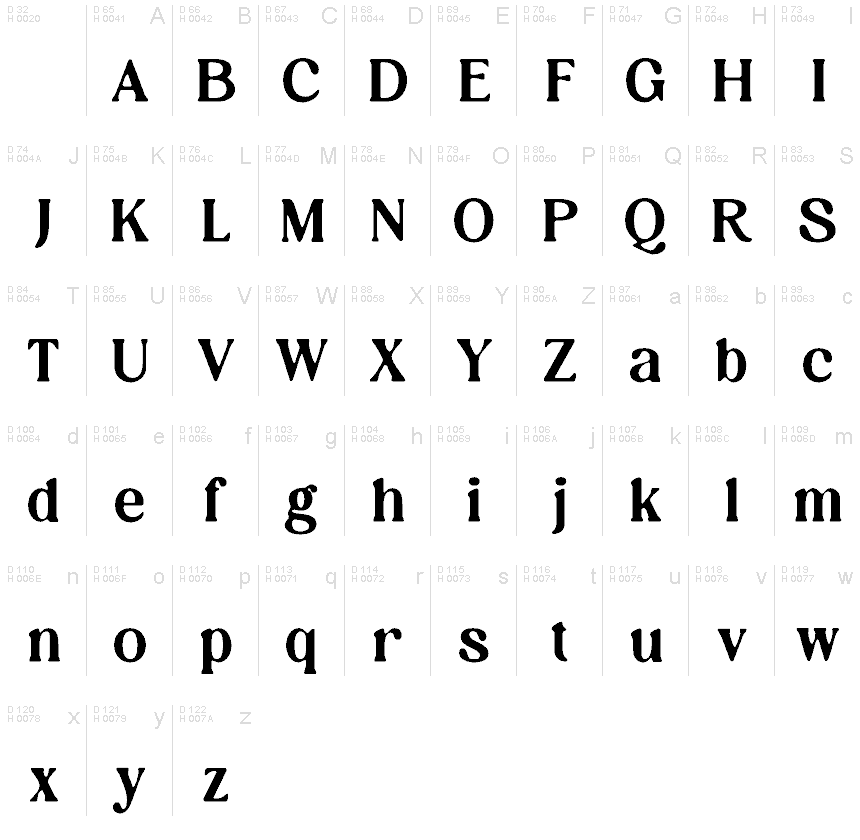
Jovelyn Blur Demo Regular
Jovelyn Blur font by Craft Supply Co. features blend sleek design with attractive finishes and vintage influence, offering a premium feel to all viewers. Retro yet elegant, refined yet personal; this timeless font for texts and headings has long ascenders giving a bolder visual interest. Traditional serif elements ensure a condensed or wider visual appeal.
Free Jovelyn blur works beautifully in branding projects and printed designs; newspapers, magazines, brochures; fashion advertisements and posters as well as business cards designs among other things. All the light themes can enjoy this font softly drawn lines instantly that combine like magic with images or drawings around them nicely.